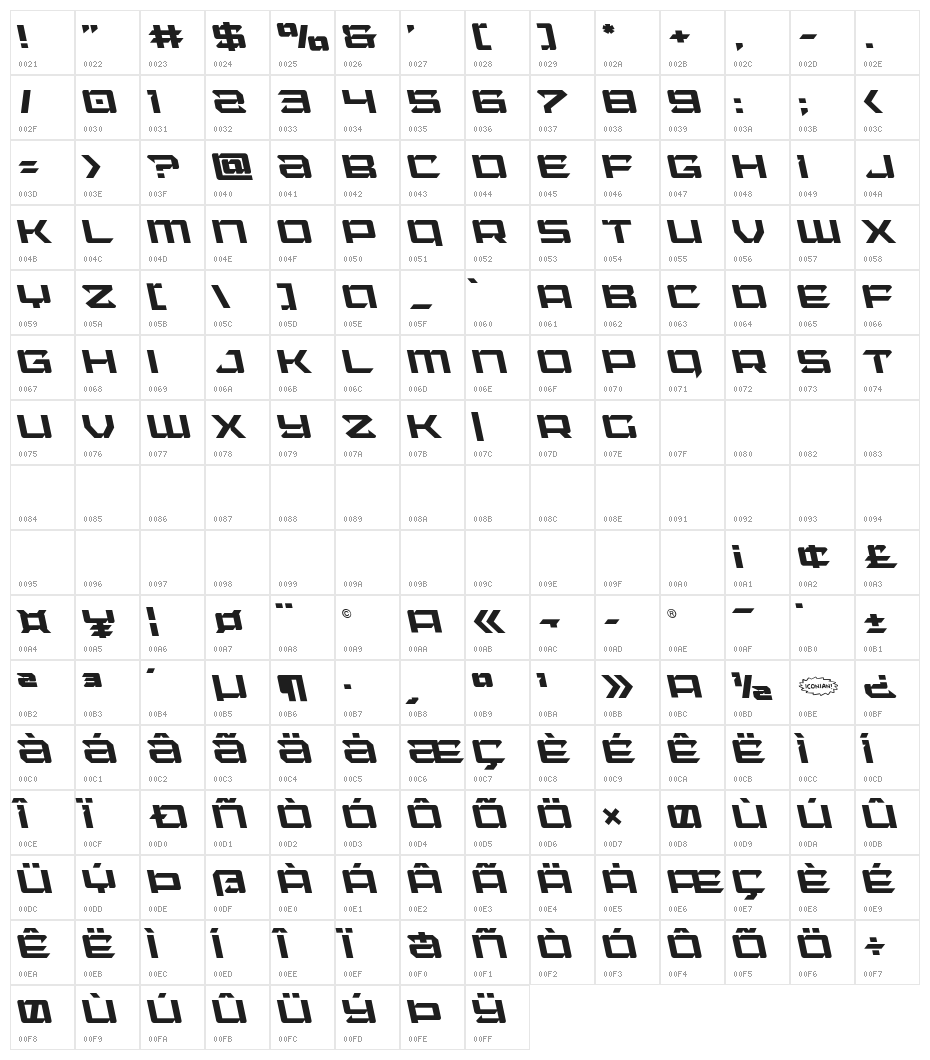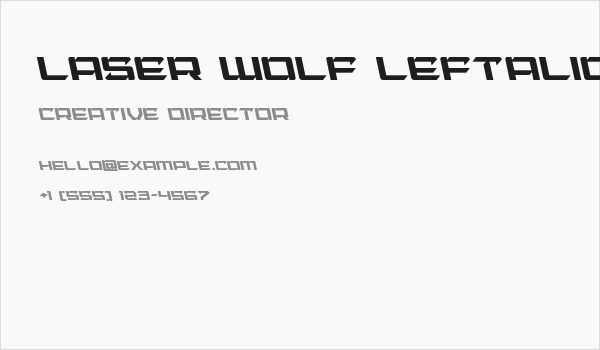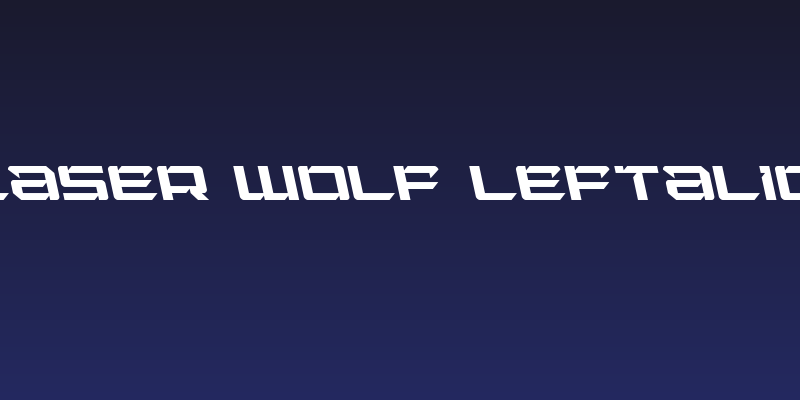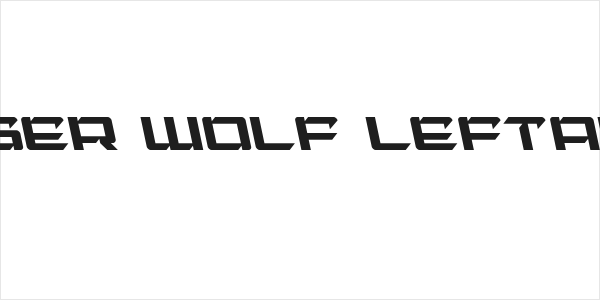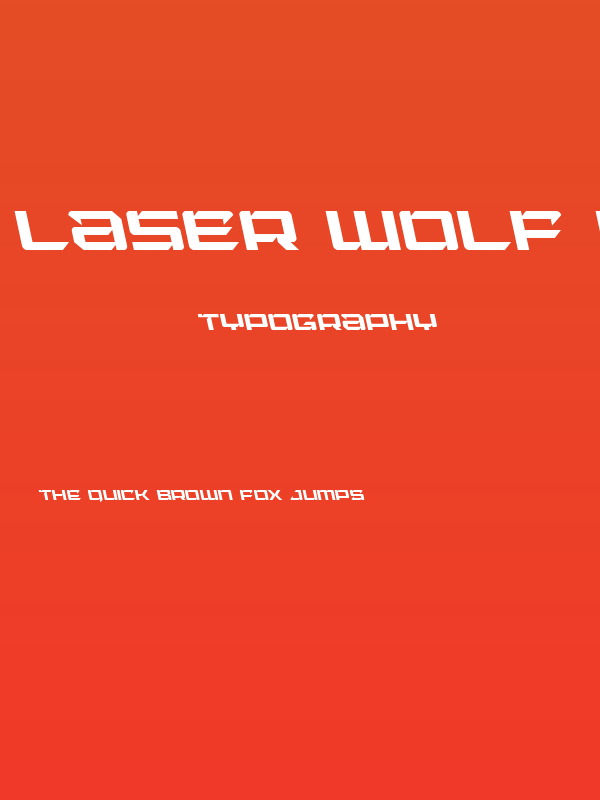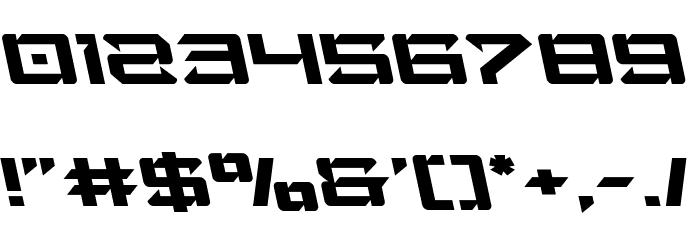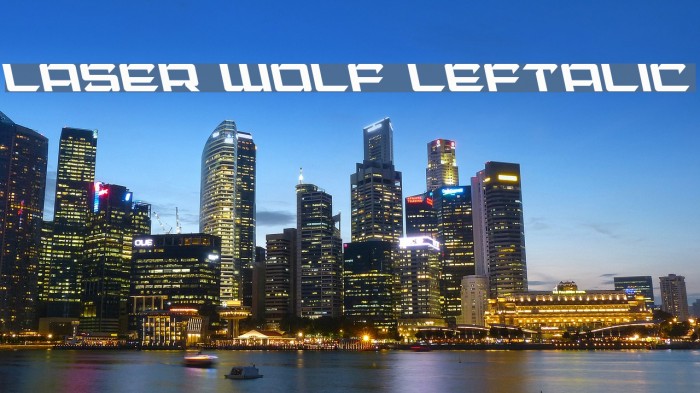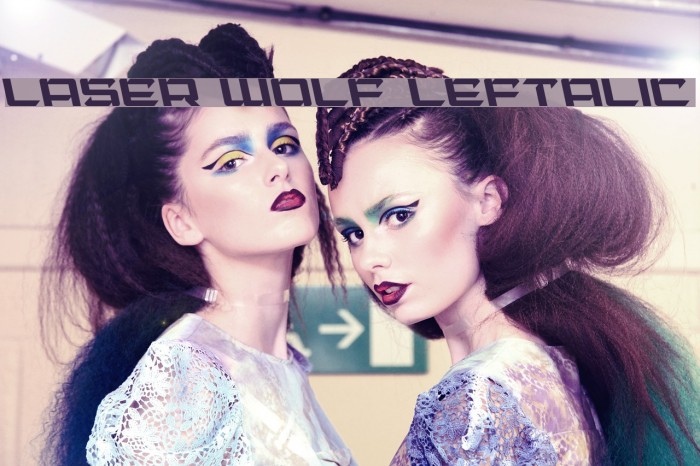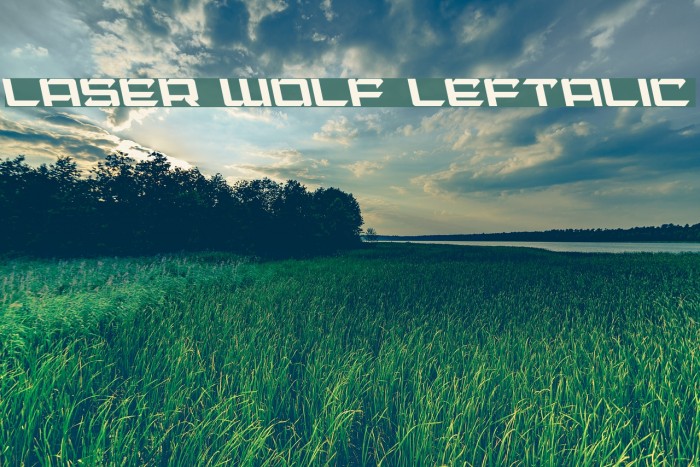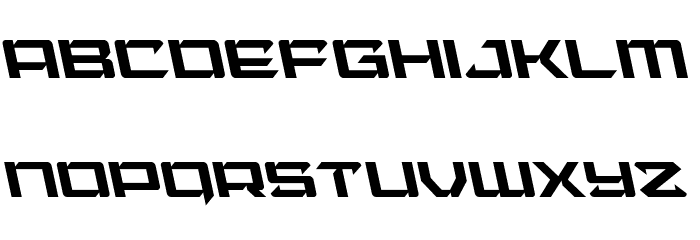
Laser Wolf Leftalic Font
This font features a futuristic and angular design, characterized by sharp edges and a bold presence. The letters are distinctly geometric, with a unique slant that gives them a dynamic and forward-moving appearance. The uppercase and lowercase letters maintain a consistent style, with the same angular cuts and bold strokes. Numbers and special characters follow the same design principles, ensuring uniformity across all characters. The font's boldness and angularity make it stand out, suitable for projects that require a modern and edgy look.
| Proposed Projects | Ideal for sci-fi themed projects, video game titles, technology branding, and modern posters. |